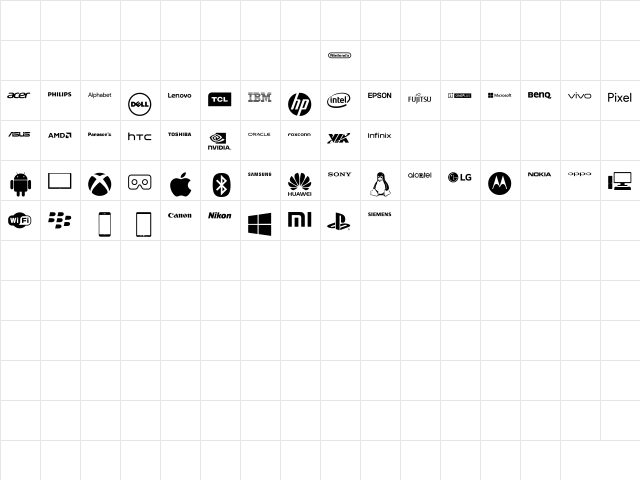
Font Logos Technology Regular
| Foundry | elharrak fonts |
| Designer | elharrak fonts |
Design Context for Font Logos Technology Typeface
Font Logos Technology has a distinctly futuristic character, with geometric precision and clean angles that feel at home in technology, gaming, and sci-fi contexts.